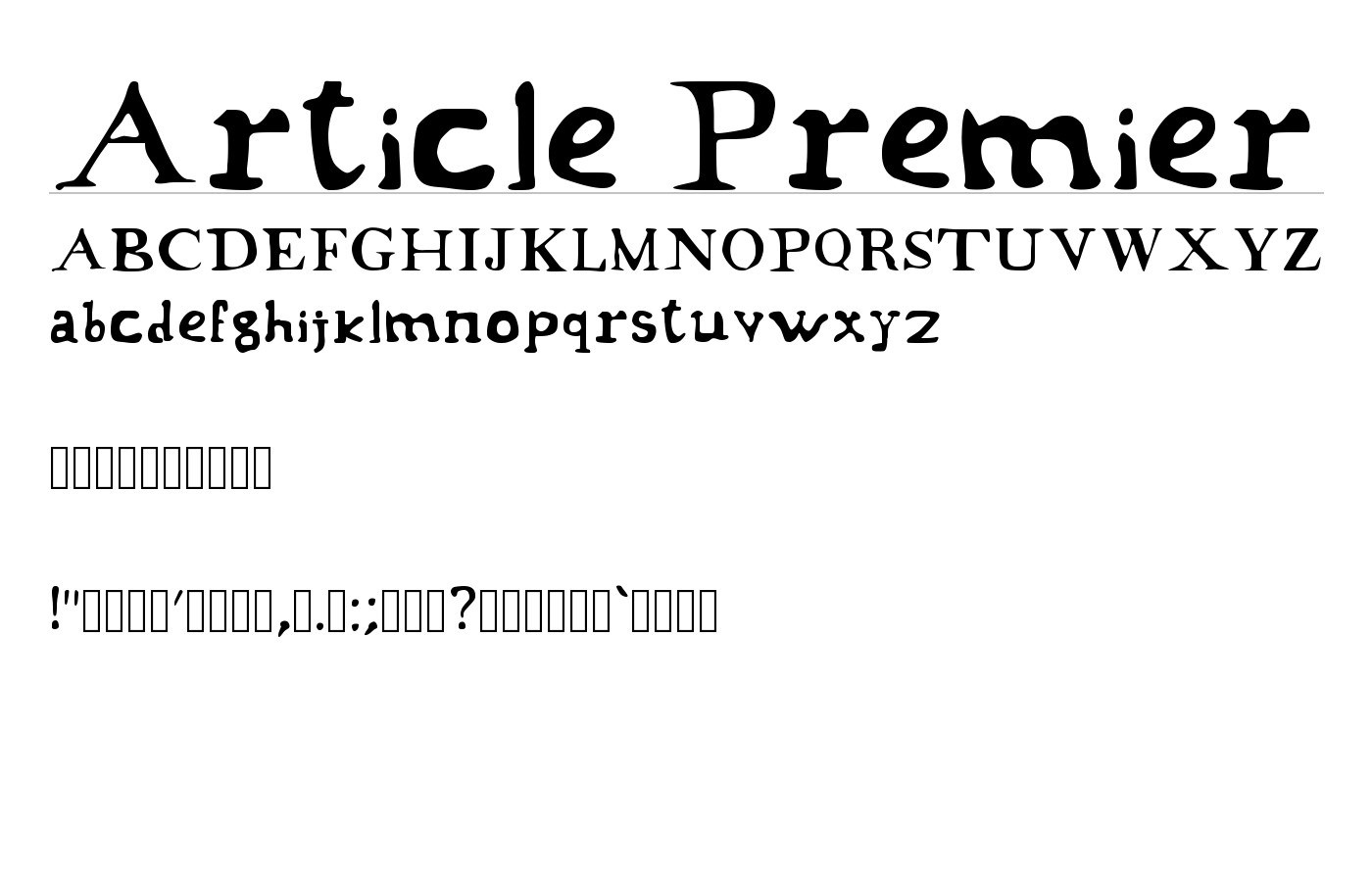
Article Premier is a distinctive serif font blending traditional elegance with a quirky, hand-crafted feel. Its uneven stroke weights and unique serif shapes give it personality and charm, making it perfect for projects seeking a vintage yet approachable style, such as editorial layouts, creative branding, and artistic posters. With its friendly irregularity, it adds character without sacrificing readability.
Article Premier Font
| Designer | Leopold Schneider |